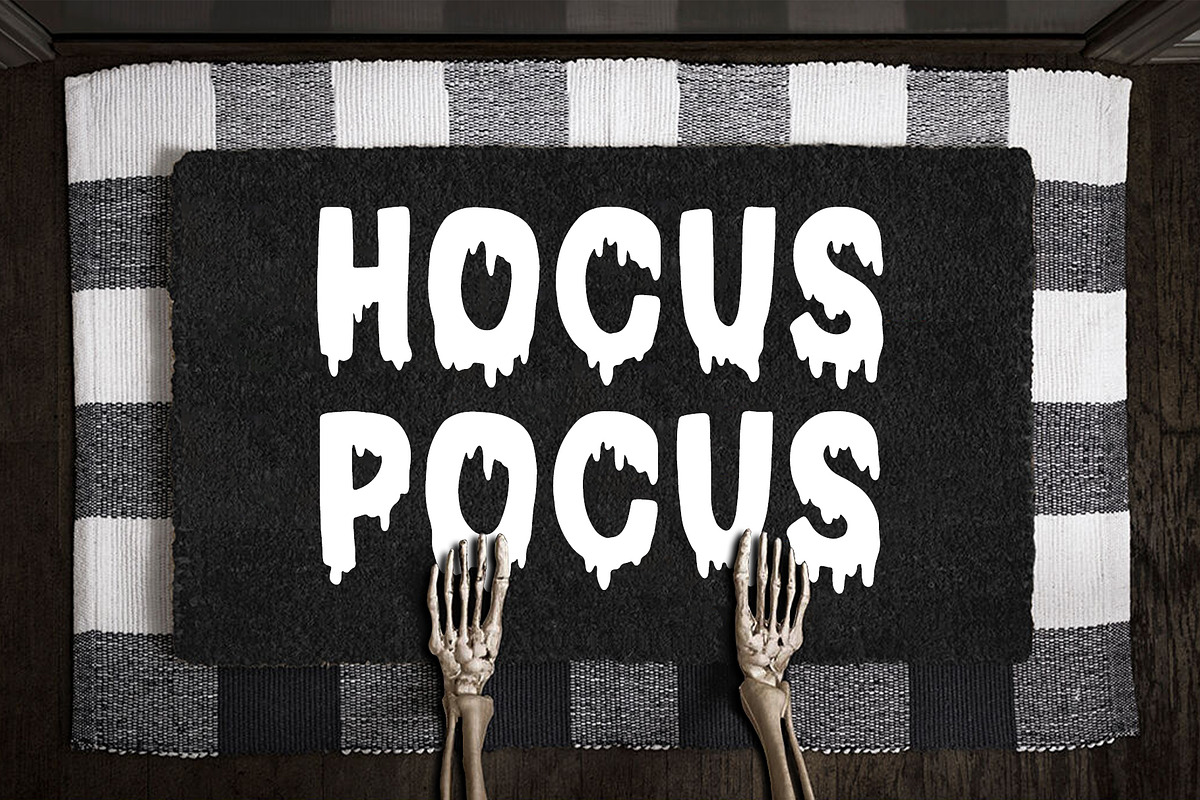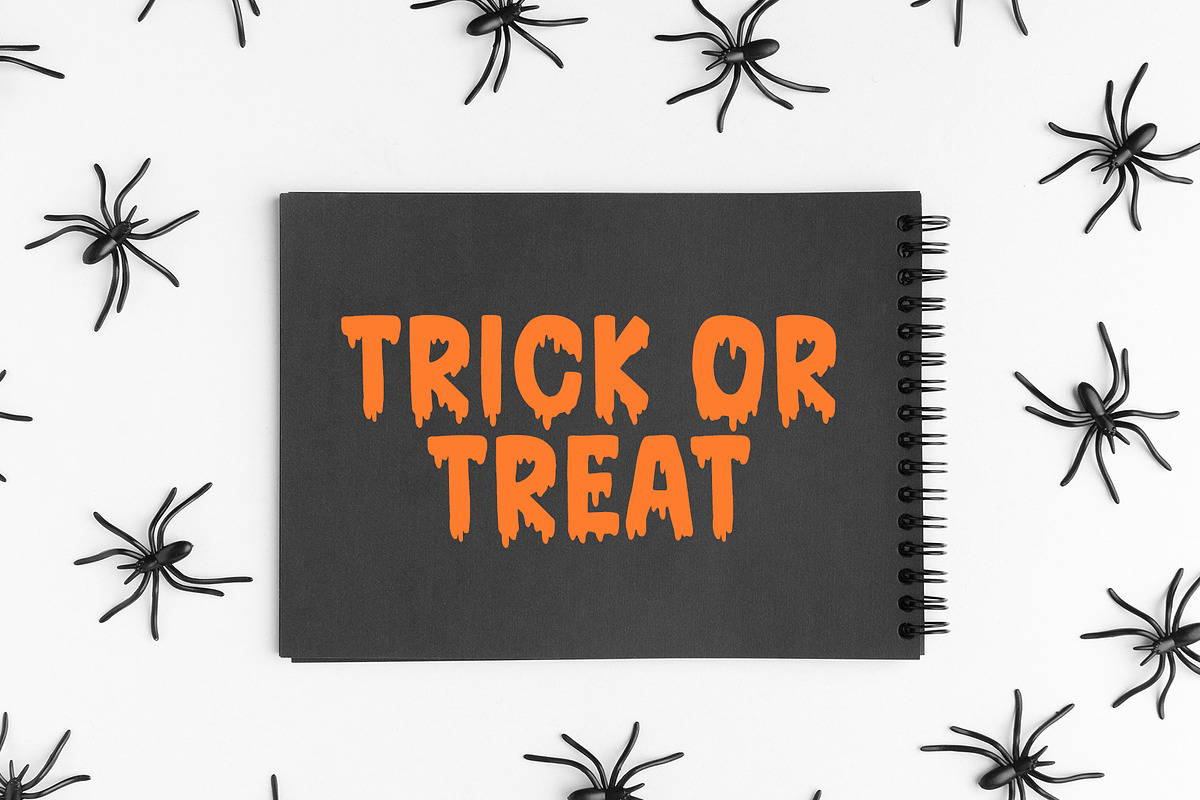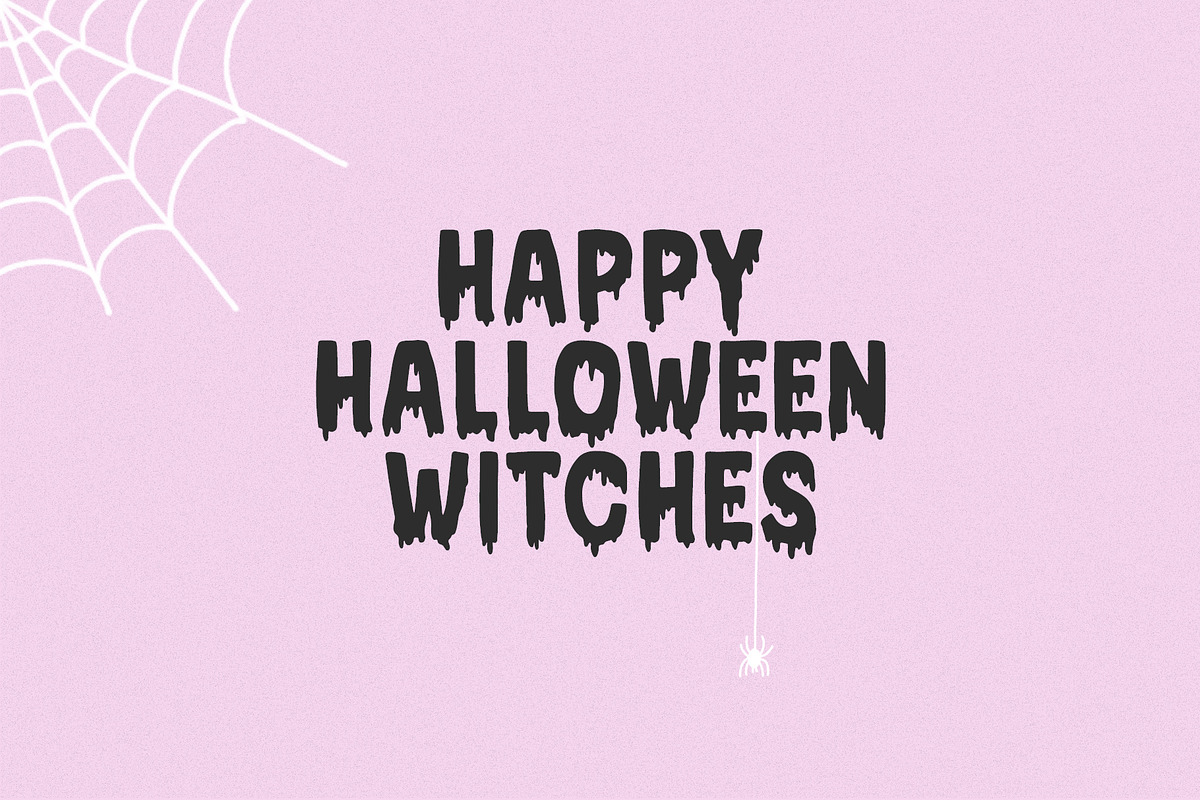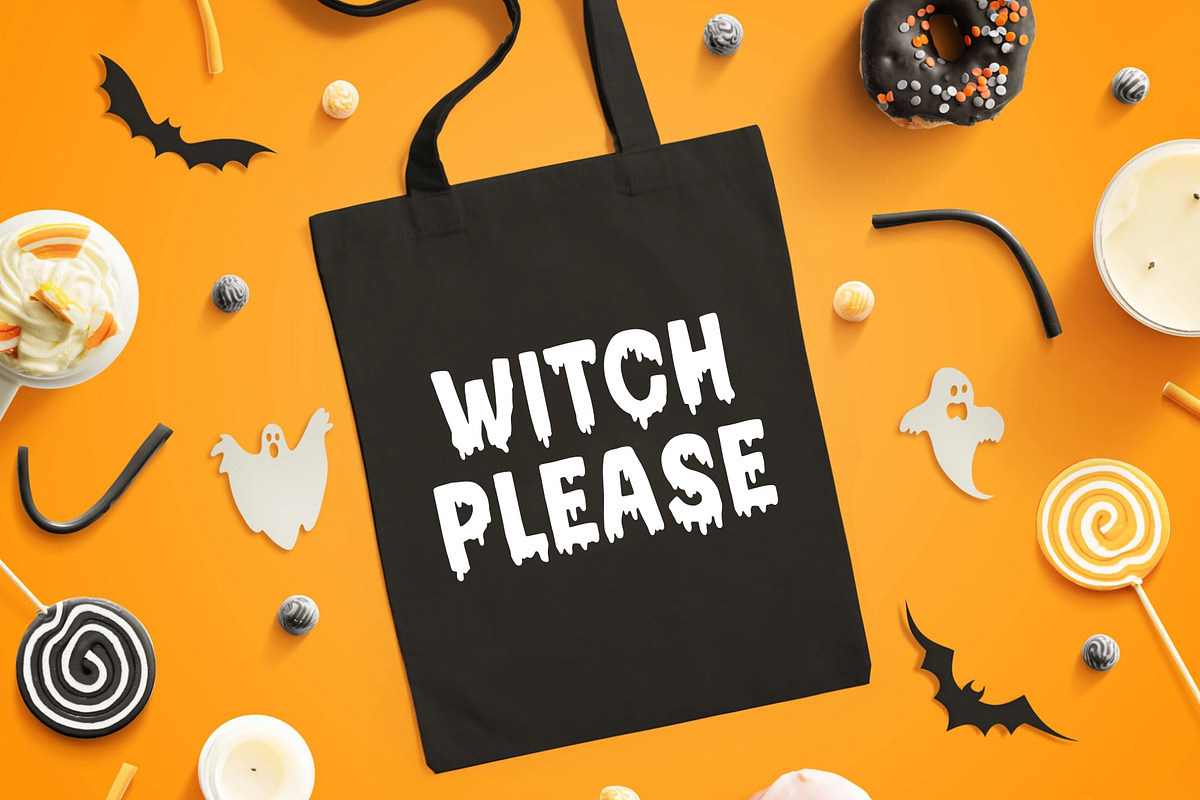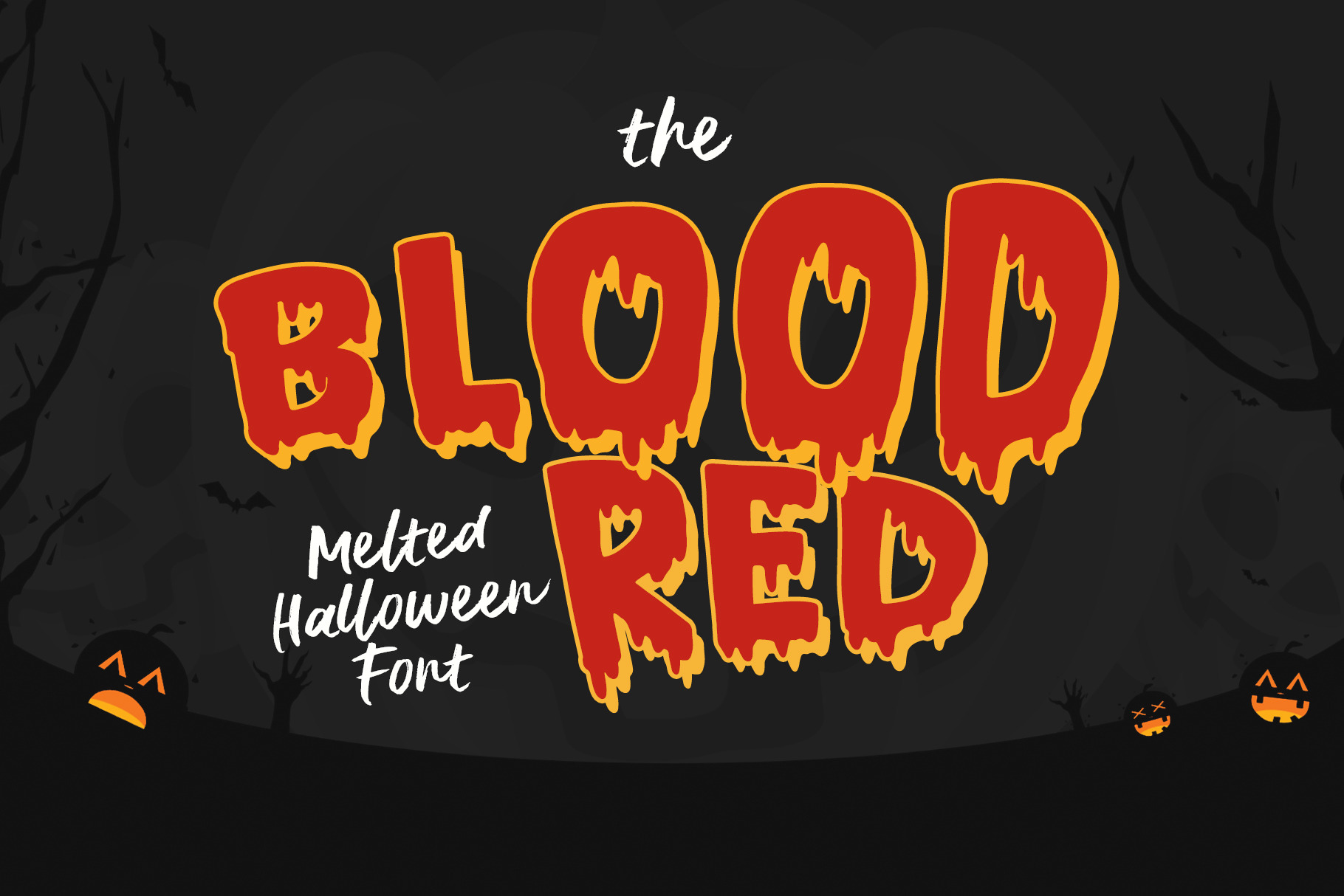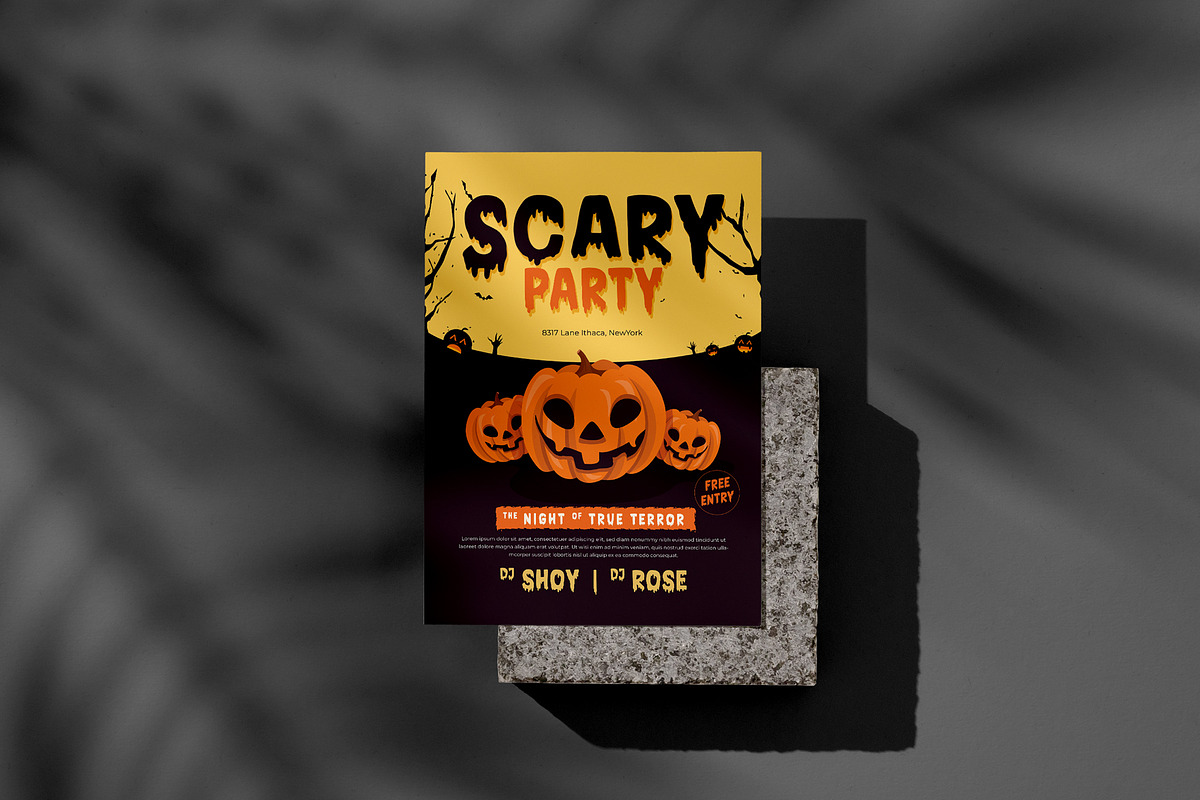
Bloodred / Spooky Halloween font
Bloodred Cyrillic will be perfect for halloween lettering, beautiful frame for your home, book covers, greeting cards, logos, marketing, magazines or anything that requires cute handwritten lettering :)